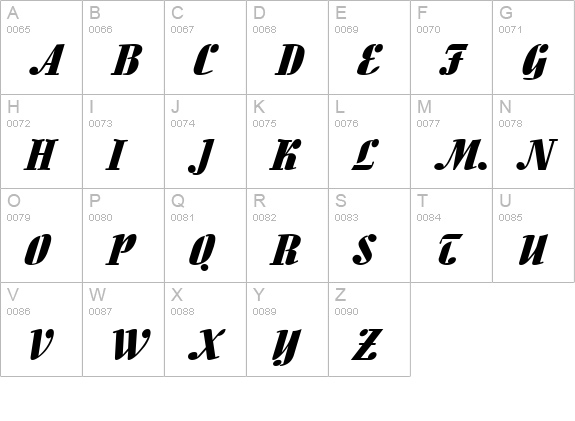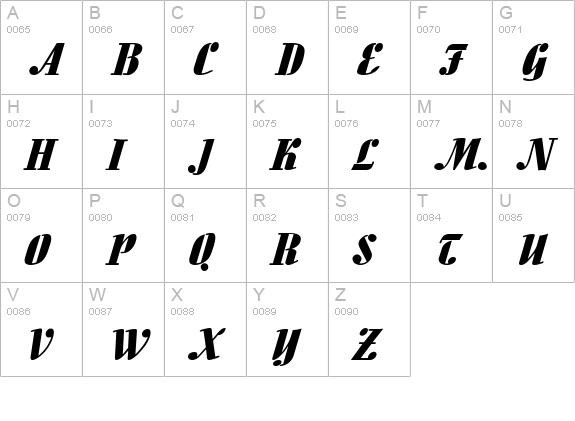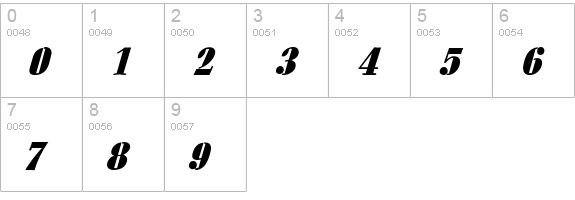
Aloe Extended Italic is a distinctive, extended-width, italic variant in the Aloe typeface family \xE2\x80\x94 well suited to design and typography projects.
Aloe Extended Italic font is a sleek and sophisticated typeface designed for modern and elegant design projects. Its italic styling adds a touch of flair and sophistication to any text, making it perfect for branding, editorial design, and more. The extended proportions of the letters give it a unique and eye-catching look that will make your designs stand out. Best of all, Aloe Extended Italic font is available for free download at FontsMarket.com. This means you can easily add this versatile and stylish font to your collection without any cost. Don't miss out on the opportunity to enhance your design projects with this beautiful and functional typeface. Download Aloe Extended Italic font today and elevate your designs to the next level!